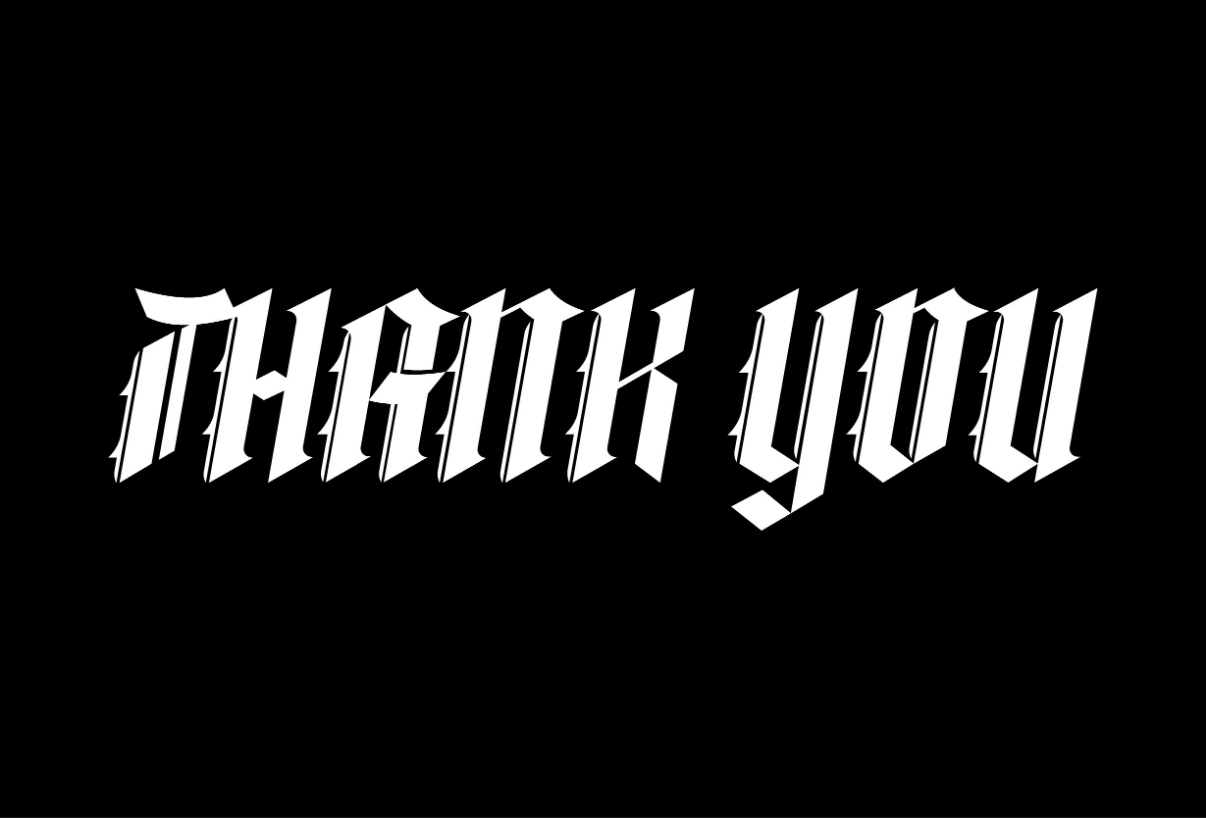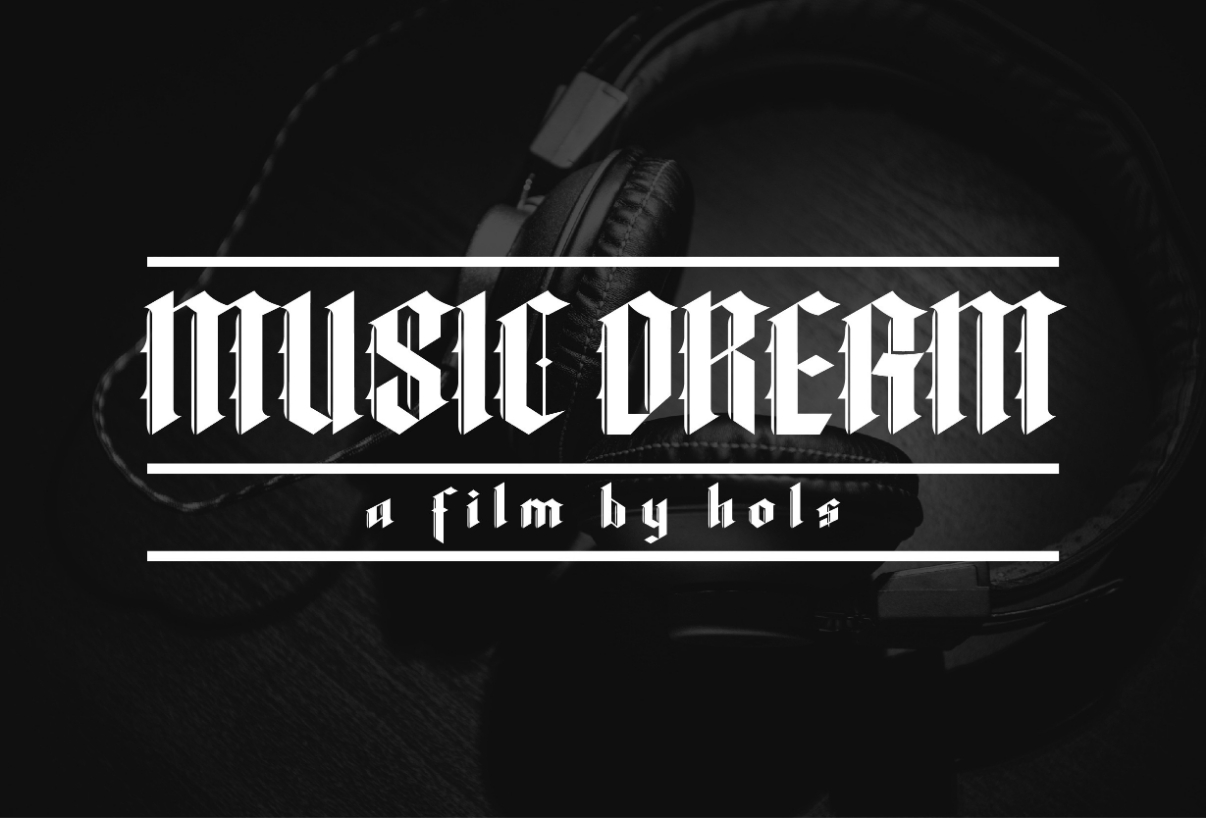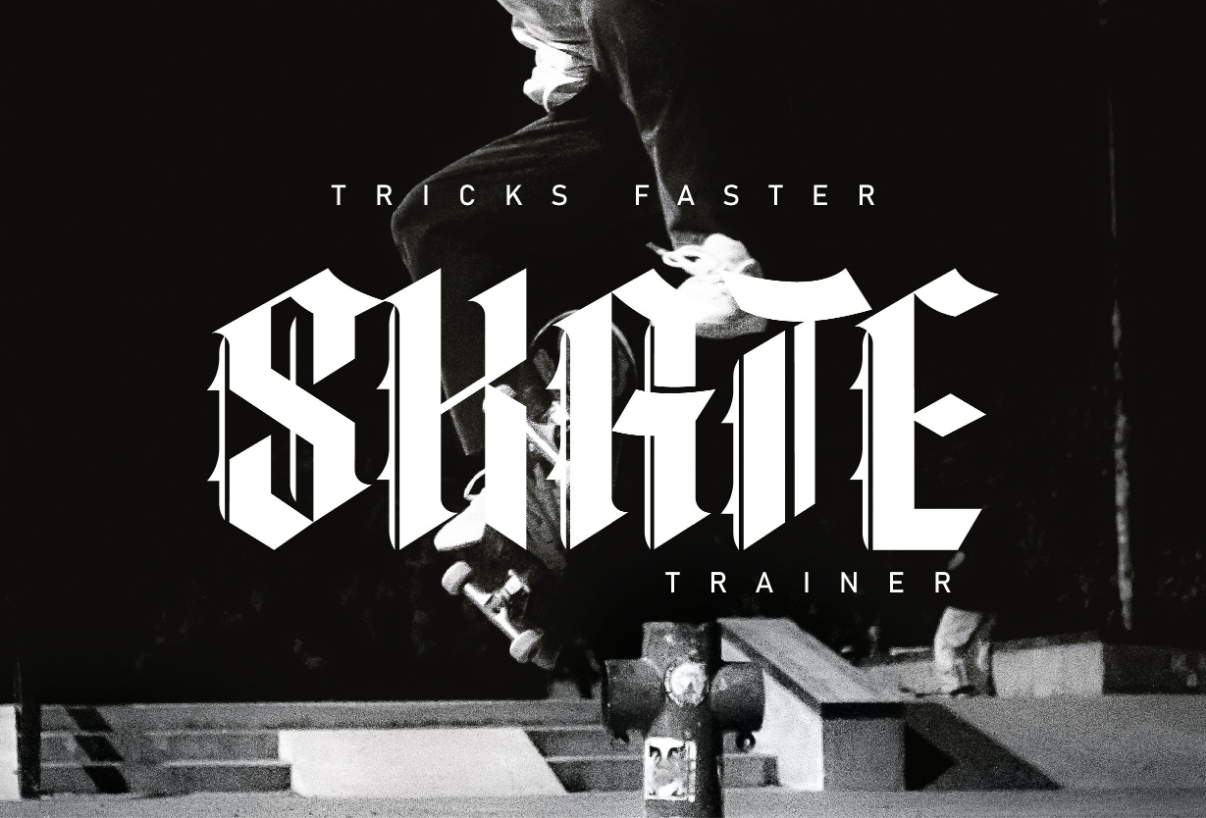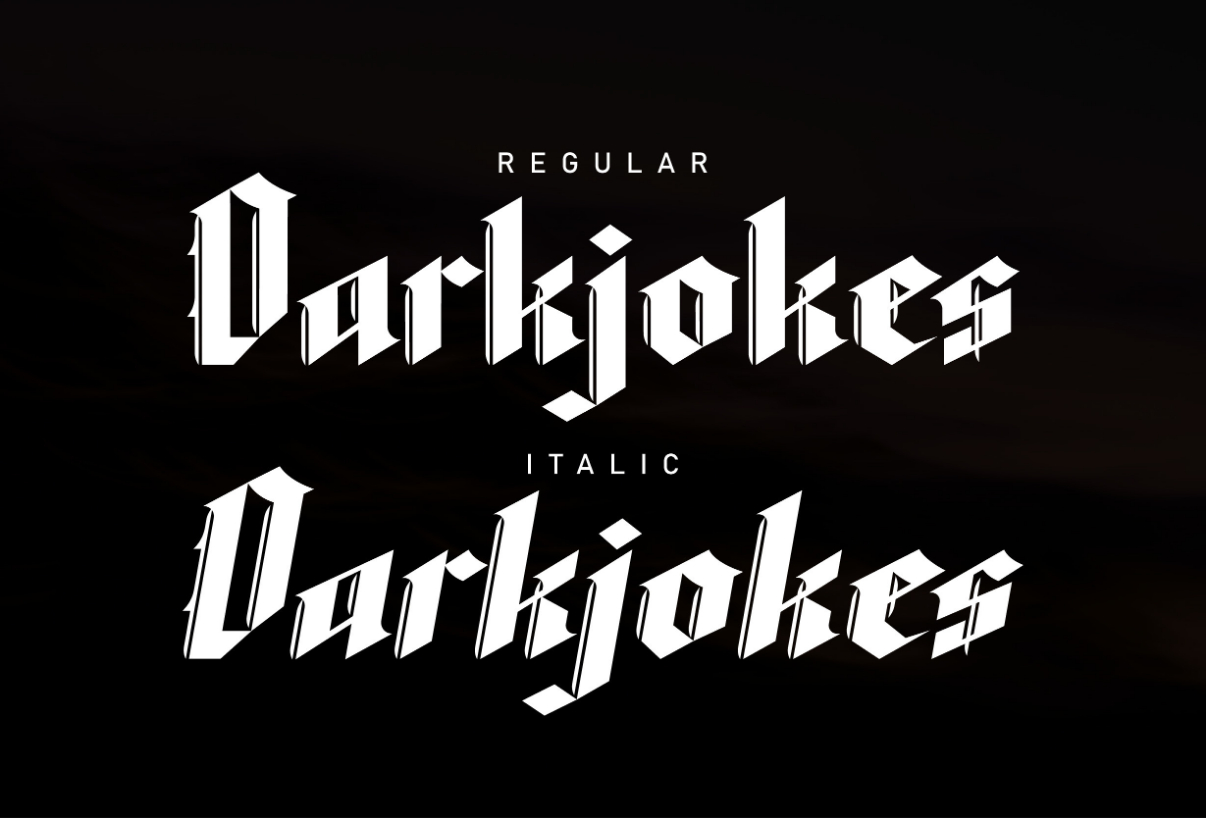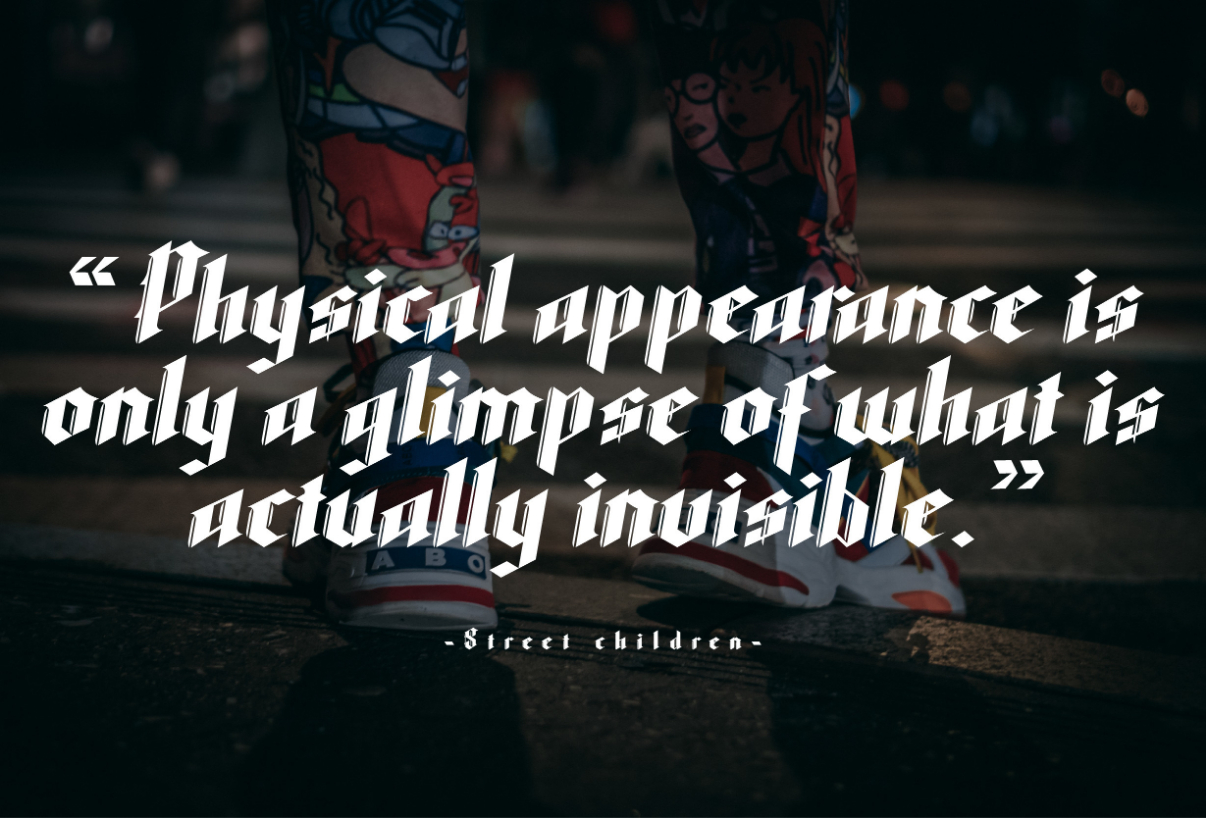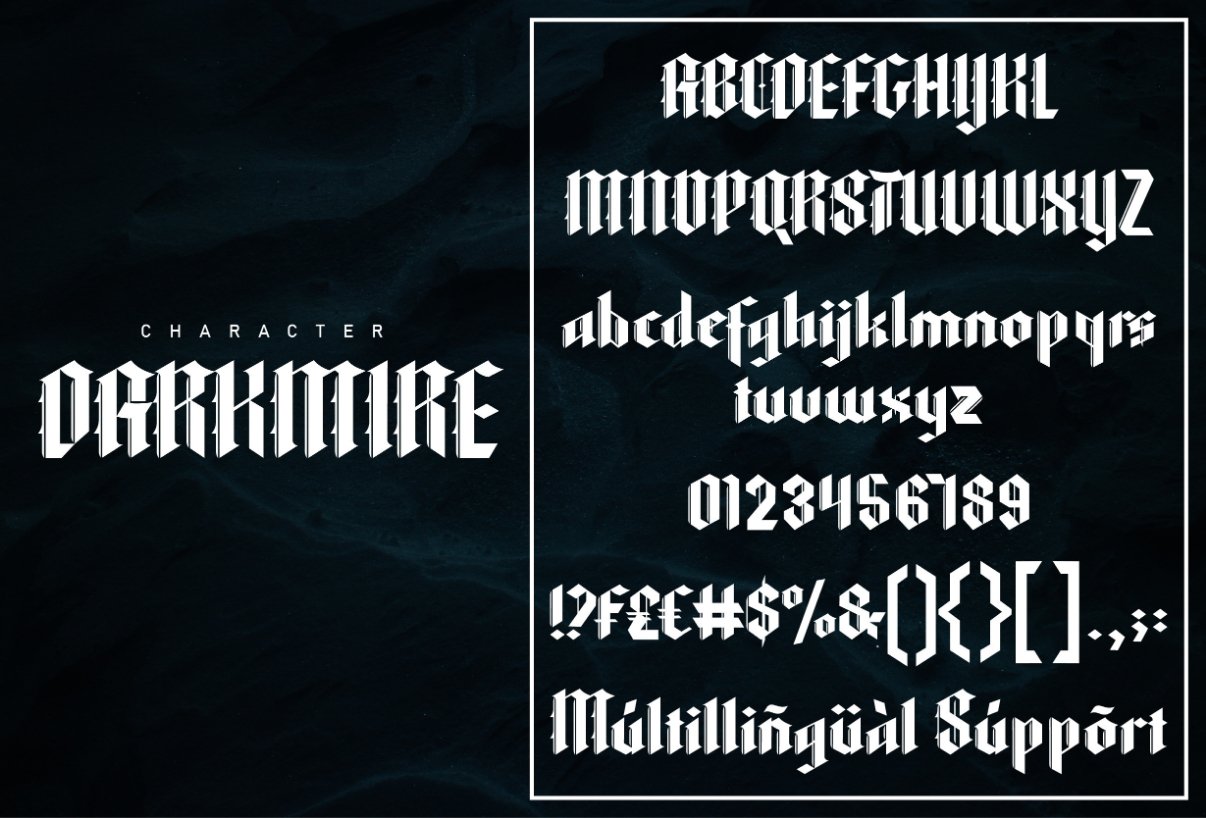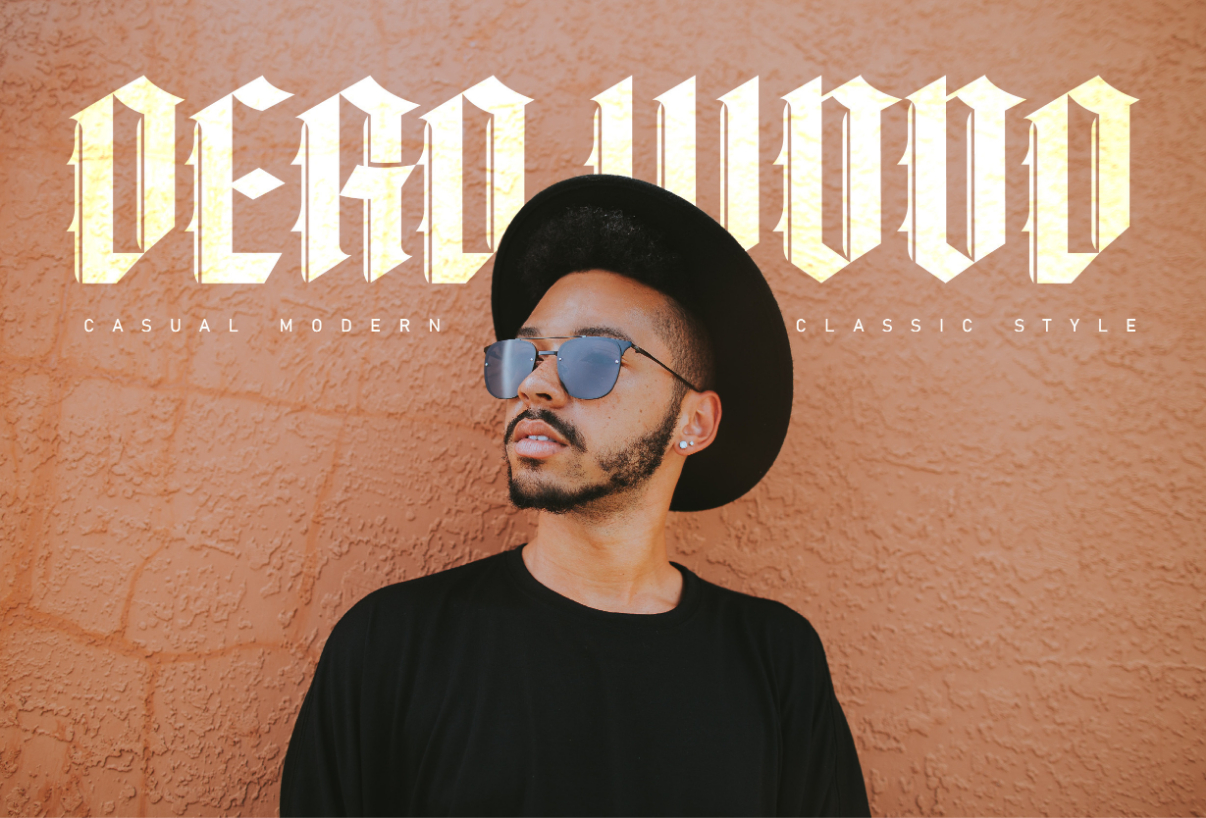
Darkmire Font
About Darkmire Font
Darkmire is a blackletter font that is a true masterpiece that commands attention with its bold and striking design. Its ornate letterforms and intricate details create a powerful visual impact that is both impressive and unforgettable. Perfect for designs that require a touch of drama and gravitas, this font is a showstopper.